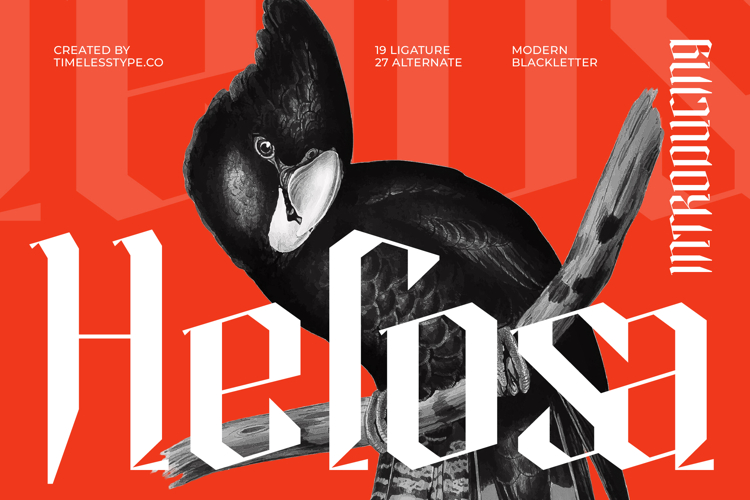
Helosa - Modern Blackletter Font
Redefine classic elegance with Font Helosa - Modern Blackletter Font , a striking typeface that masterfully blends the rich heritage of traditional blackletter with a crisp, contemporary aesthetic. Its bold strokes, sharp angles, and distinctive form create an instantly recognizable and powerful visual identity. This font is designed to command attention, offering a sophisticated and dramatic presence for any creative endeavor.
Experience unparalleled typographic versatility with Font Helosa - Modern Blackletter Font , featuring an impressive array of 19 ligatures and 27 alternates. These expansive options allow for meticulous customization, enabling designers to craft truly unique and expressive lettering. Elevate your headlines, logos, and intricate textual elements with a level of detail that speaks volumes about craftsmanship and style.
Elevate your projects with a touch of sophisticated drama that only Font Helosa - Modern Blackletter Font can provide. Perfect for luxury branding, exclusive packaging design, compelling editorial layouts, and impactful event invitations, this font infuses every design with premium quality and an unforgettable presence. Its unique character ensures your message stands out in a crowded visual landscape.
Expand your creative reach without boundaries thanks to the thoughtful design of this exceptional typeface. With its extensive multilingual support, Font Helosa - Modern Blackletter Font adapts seamlessly across global markets, making it incredibly versatile for international projects. Choose this font to craft designs that resonate with both historical depth and undeniable contemporary appeal, ensuring your message is heard, worldwide.